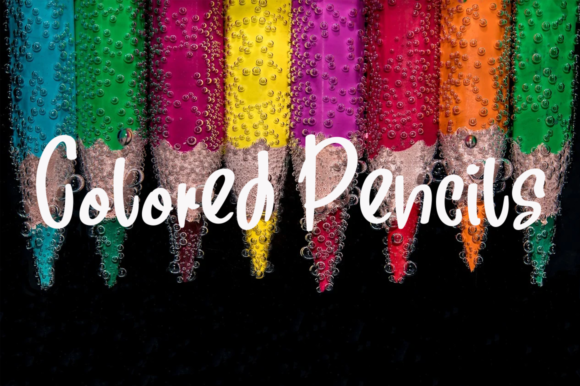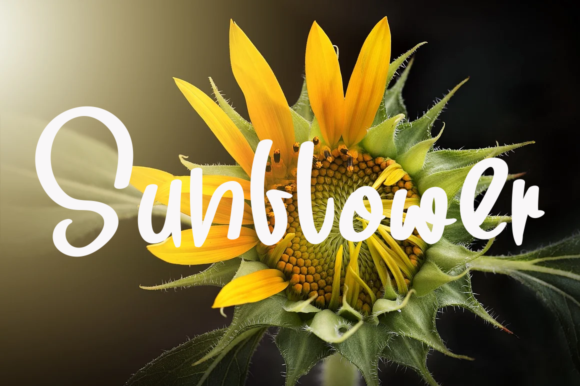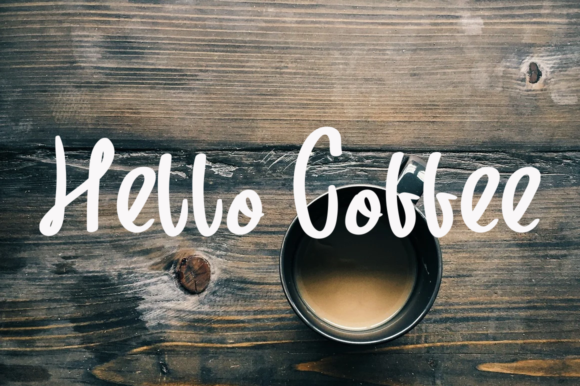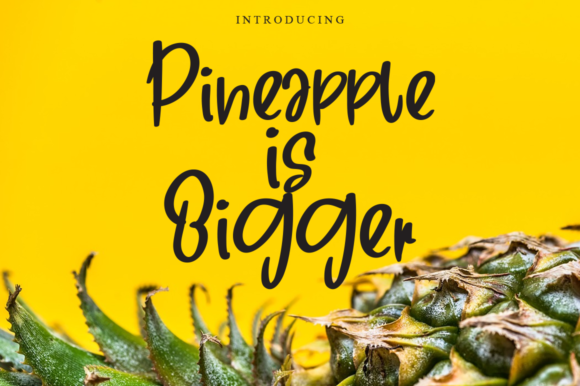
Introduction to Pineapple in Bigger Font
Pineapple in Bigger is a magical script font carefully created with a touch of elegance.
Whether you’re looking for fonts for Instagram or calligraphy scripts for DIY projects, this font will turn any creative idea into a true piece of art .
Key Features of Pineapple in Bigger Font
Why Choose Pineapple in Bigger Font?
Pineapple in Bigger Font offers exceptional quality and versatility, making it a valuable addition to your design toolkit. Whether you’re creating for personal projects or commercial use, Pineapple in Bigger Font delivers professional results.